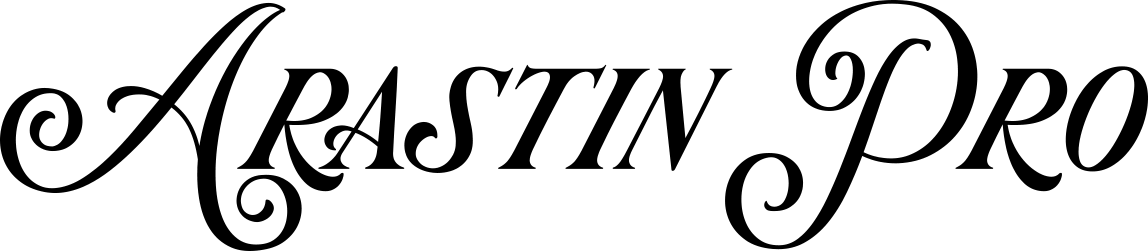
Arastin Pro Font
Arastin Pro is a romantic font that has an air of friendliness, along with elegance. This retro font has letterings with swash caps and tails. Perfect for formal invitations like weddings and Valentine’s Day cards.